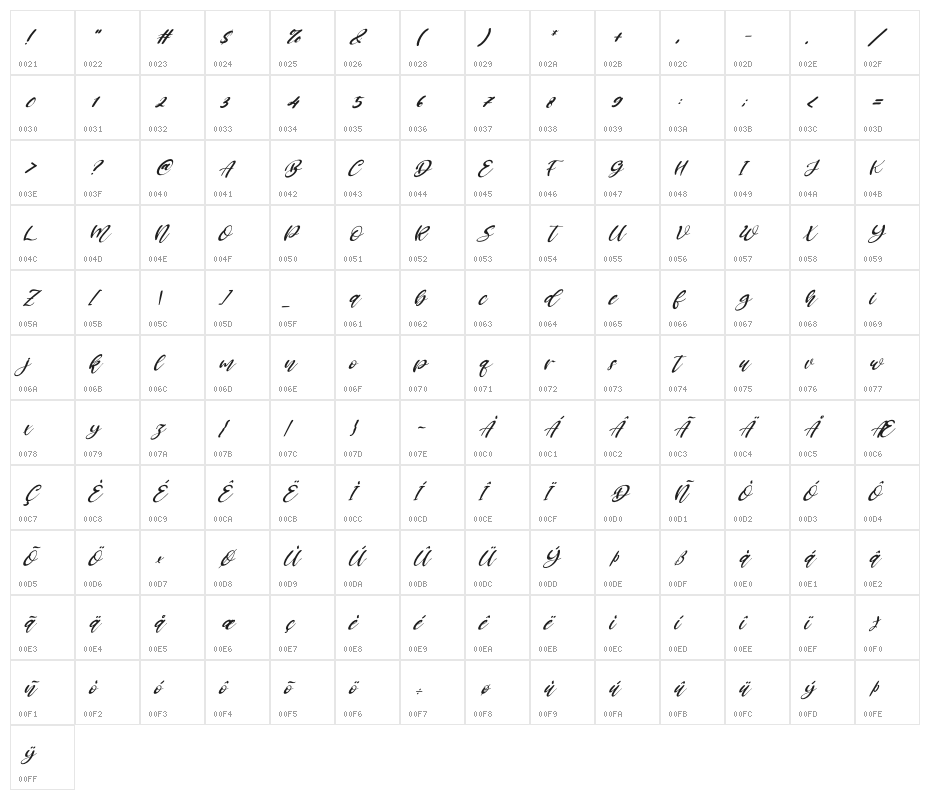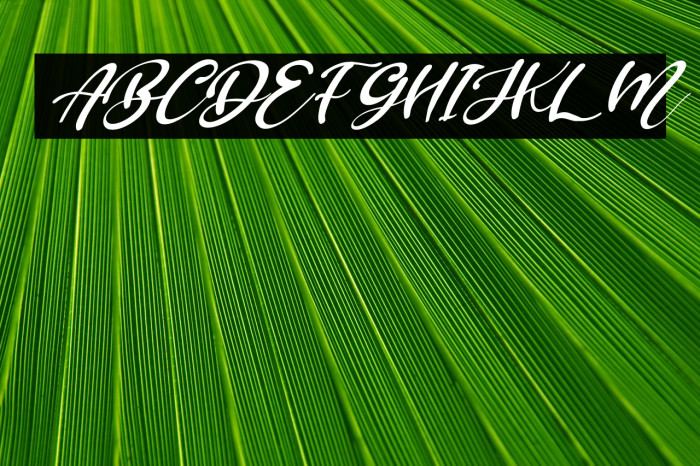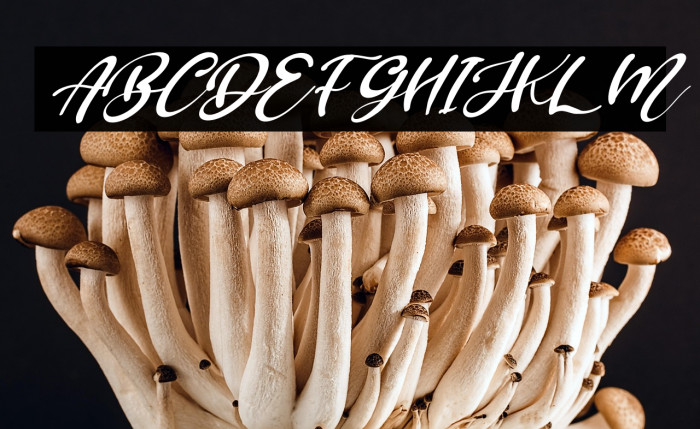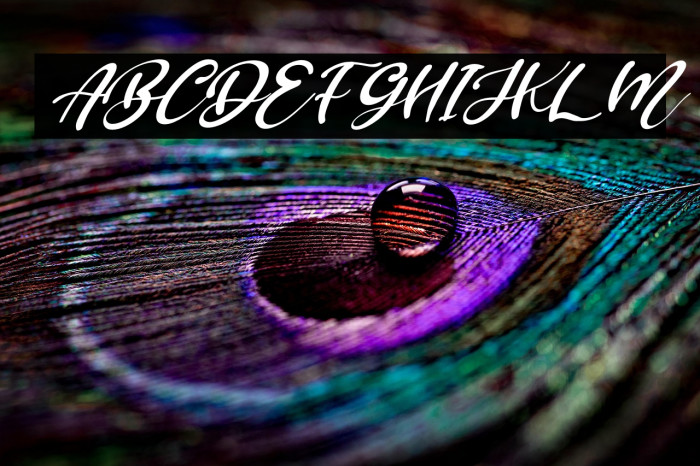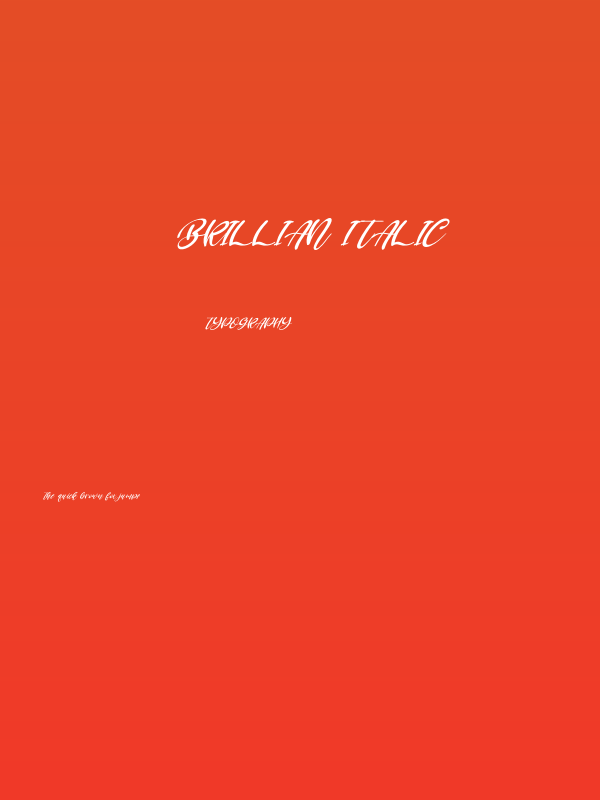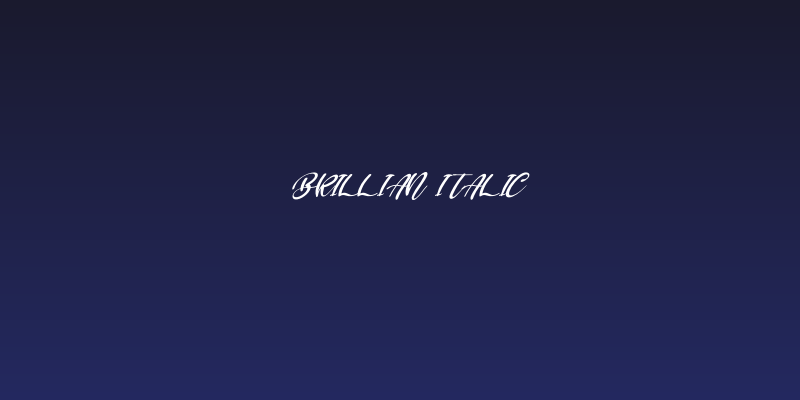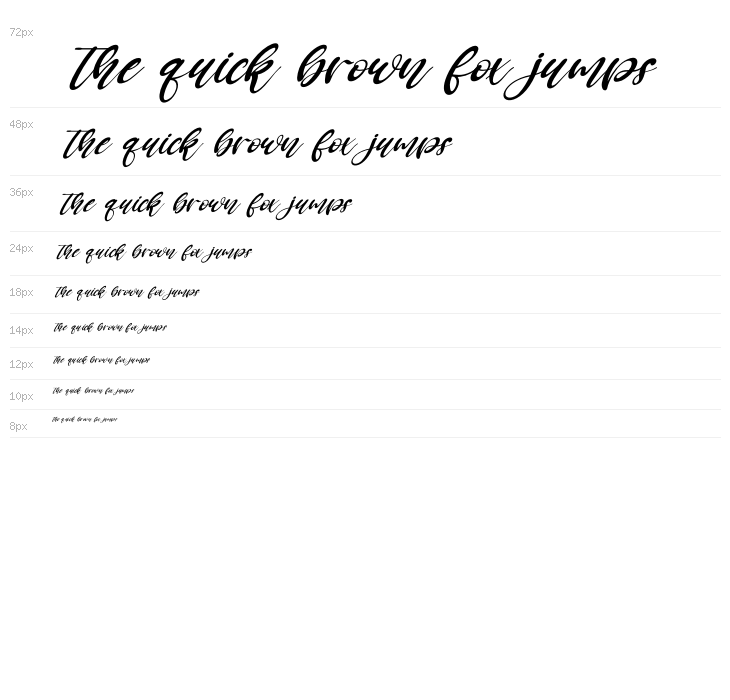
Brillian Italic Font
Brillian Italic Description
This font features a flowing, cursive style with elegant, sweeping strokes that give it a sophisticated and artistic appearance. The letters are connected in a fluid manner, creating a sense of movement and grace. The uppercase letters are bold and prominent, while the lowercase letters maintain a consistent flow, enhancing readability. The numerals and special characters are designed to complement the overall script style, maintaining the same fluidity and elegance. This font is ideal for projects that require a touch of elegance and creativity.
| Overall Style | Elegant, Artistic |
| Proposed Projects | Ideal for wedding invitations, greeting cards, branding, and elegant logos. |